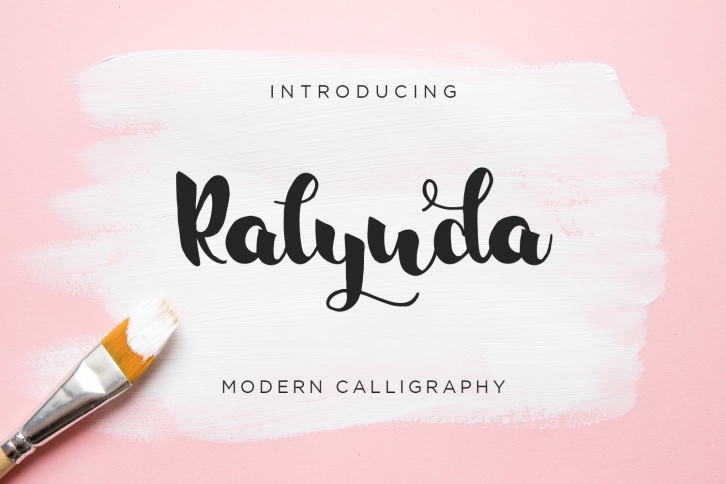
Ralynda is a great font that was designed by Alpaprana Studio. Imagine the amount of combinations you can create using this font! The archive is 5.35 MB and it was released on December 4, 2020. Ralynda looks beautiful on wedding invitations, greeting cards, logos, posters, labels, t-shirt designs, logos, business cards and is perfect for use in ink or watercolor works, fashion, magazines, packaging and food menus, children's books and more!